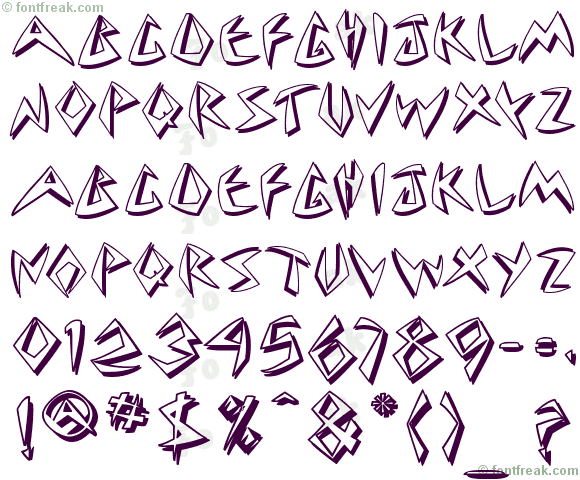
Cuneate
Cuneate, designed by Manfred Klein in 2004, is a unique decorative font that captures attention with its striking geometric forms. This font falls into the category of display typefaces, making it ideal for projects requiring a bold visual statement. The characters feature an irregular stroke weight, giving them an organic feel while maintaining clarity. The contrast between thick and thin lines is pronounced, enhancing its expressive nature. The spacing is thoughtfully balanced, ensuring legibility even in larger formats.
Cuneate is particularly suitable for creative applications such as movie posters, where its distinctive style can evoke a sense of drama and intrigue. It also shines in the realm of event materials like wedding invitations, where its artistic flair can set a captivating tone. Additionally, this font works well for restaurant menus, providing a quirky yet readable option that can draw diners’ attention to featured dishes. Small business owners seeking to establish a memorable brand identity will find Cuneate to be an excellent choice for logos and promotional materials, as it conveys a sense of creativity and uniqueness.
What sets Cuneate apart is its ability to blend artistic expression with functionality. Its distinctive shapes and lines make it a versatile option for a wide variety of graphic design needs, ensuring that it stands out in any context. With Cuneate, your projects can achieve a fresh, dynamic look that captures attention and inspires creativity.